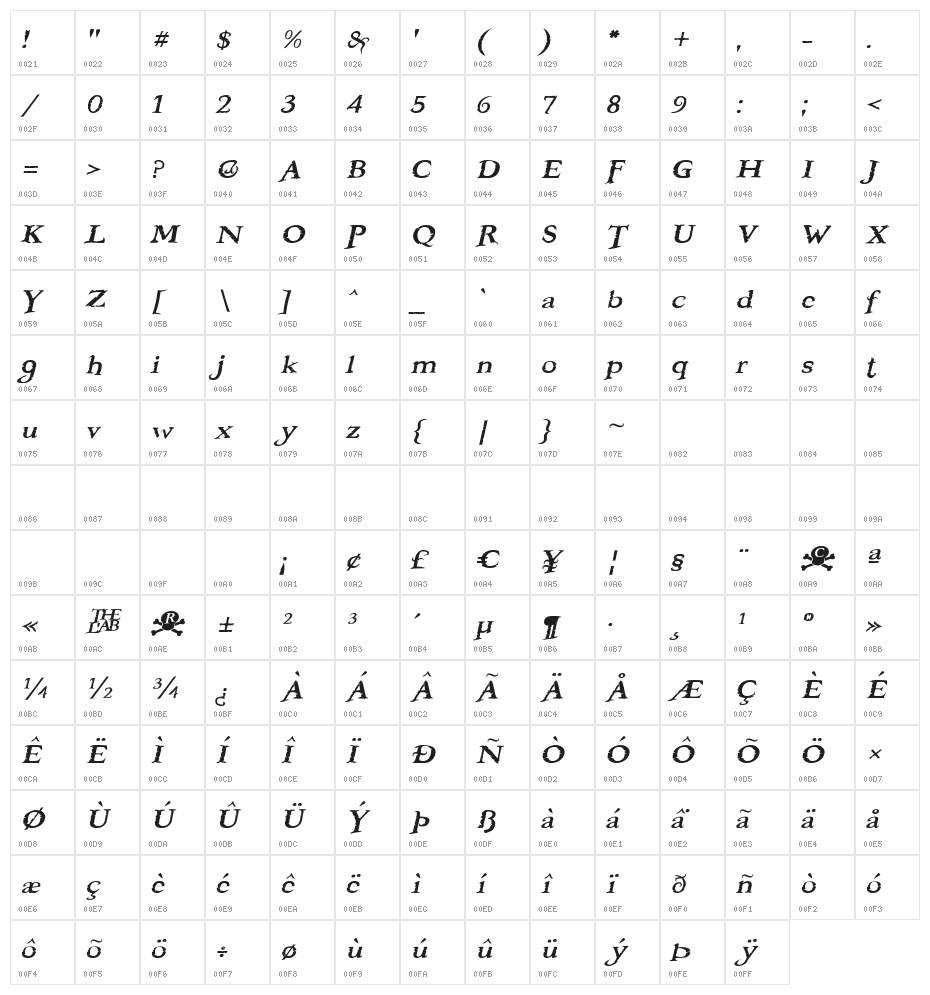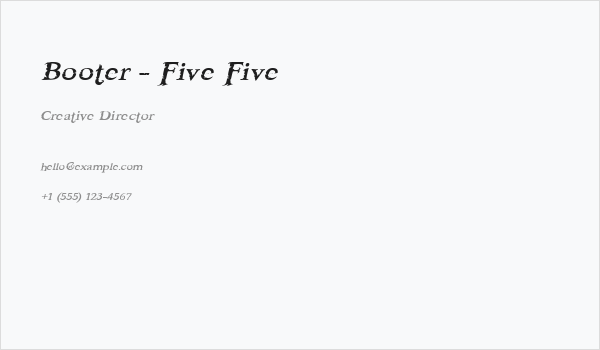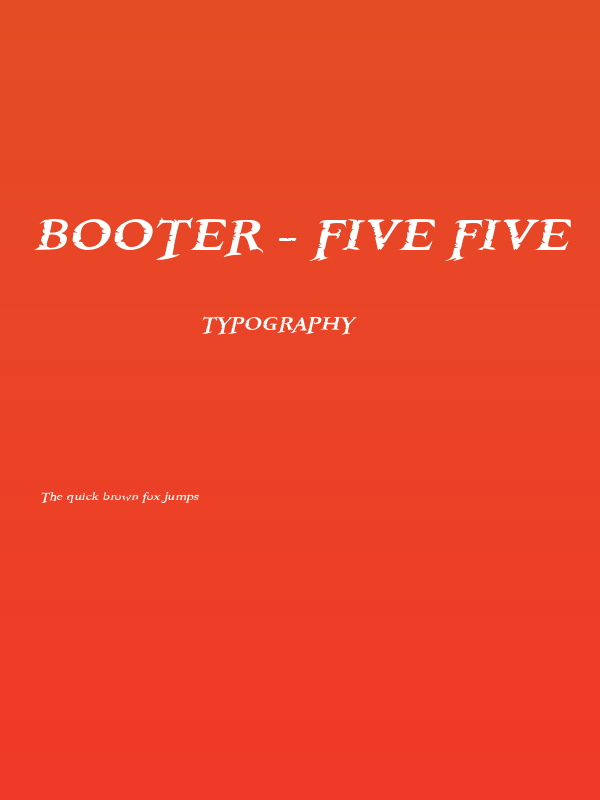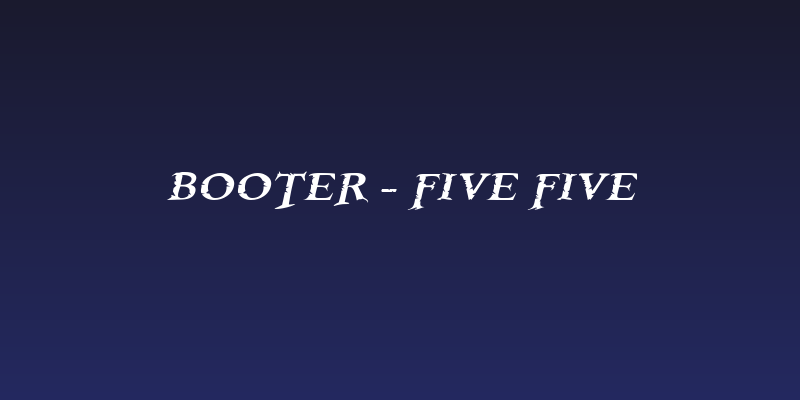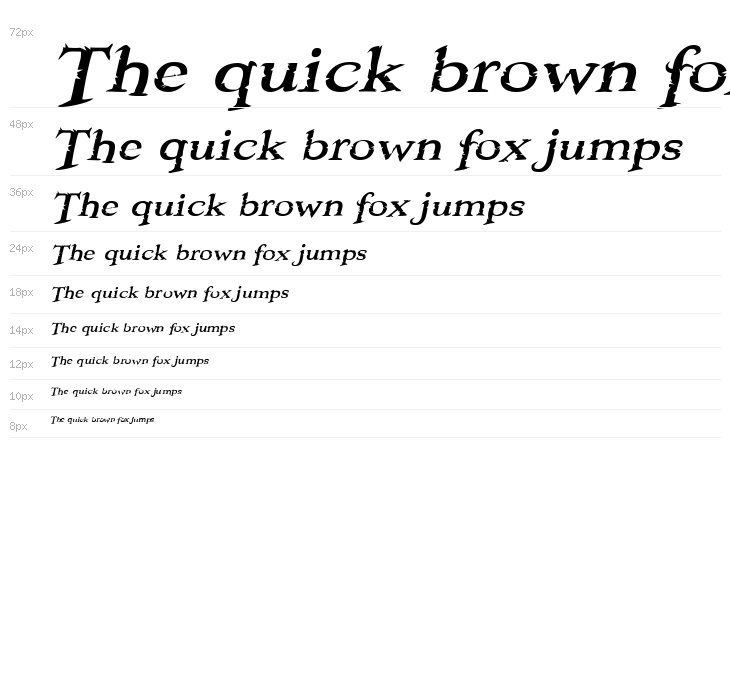
Booter - Five Five Font
Booter - Five Five Description
This font features a dynamic and edgy style, characterized by sharp, angular strokes and a slightly distressed appearance. The uppercase letters are bold and commanding, while the lowercase letters maintain a consistent flow with a touch of elegance. The numerals are distinct and easily readable, complementing the overall aesthetic. Special characters are designed with the same attention to detail, ensuring a cohesive look across all glyphs. The font's unique style makes it stand out, offering a modern twist on traditional serif elements.